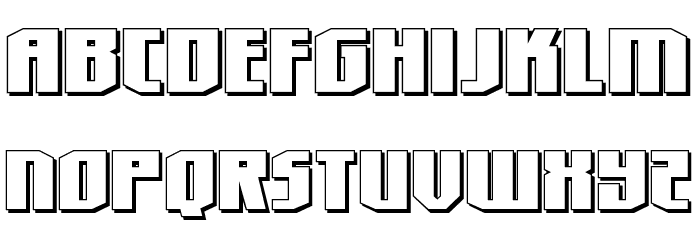
Hero Worship Shadow Font
This font features a bold, geometric design with a distinct shadow effect that gives it a three-dimensional appearance. The characters are blocky and angular, with sharp edges and a strong presence. The shadow is consistently applied to the right side of each character, enhancing the depth and making the text stand out. The uppercase and lowercase letters maintain a uniform style, while the numerals and special characters are designed to match the bold and impactful aesthetic. This font is ideal for creating eye-catching headlines or titles that require a dramatic and modern look.
Bold, geometric font with a shadow effect for a 3D appearance.
- Proposed Projects: Ideal for posters, logos, video game titles, and any design requiring a bold, impactful statement.